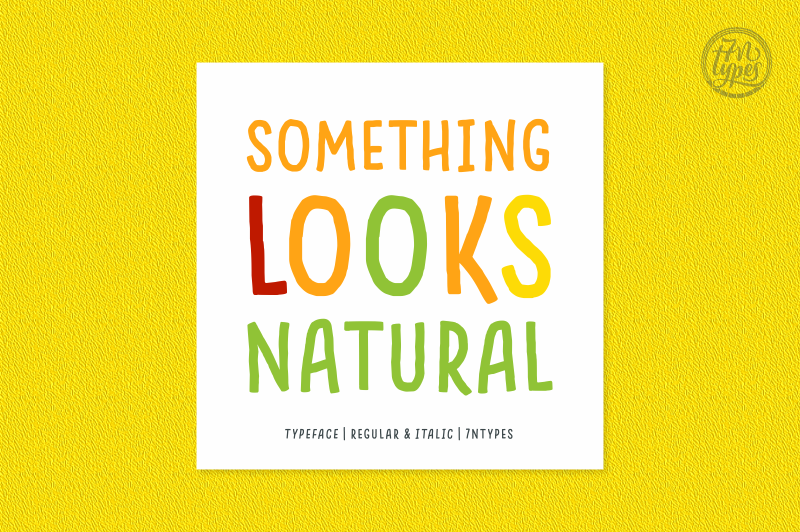
Font name: | Something Looks Natural |
Something Looks Natural is a a playful fun font that allows you to add a light-hearted touch to your designs. It comes with two variants: Regular & Italic Personal use: FREE (Donation is much appreciated!) Commercial use: BUY it only on Creative Fabrica: https://www.creativefabrica.com/product/something-looks-natural/ref/87 Contact me [c7nazara@gmail.com] or visit my website https://7ntypes.com if you have any request or question. Thank you. |